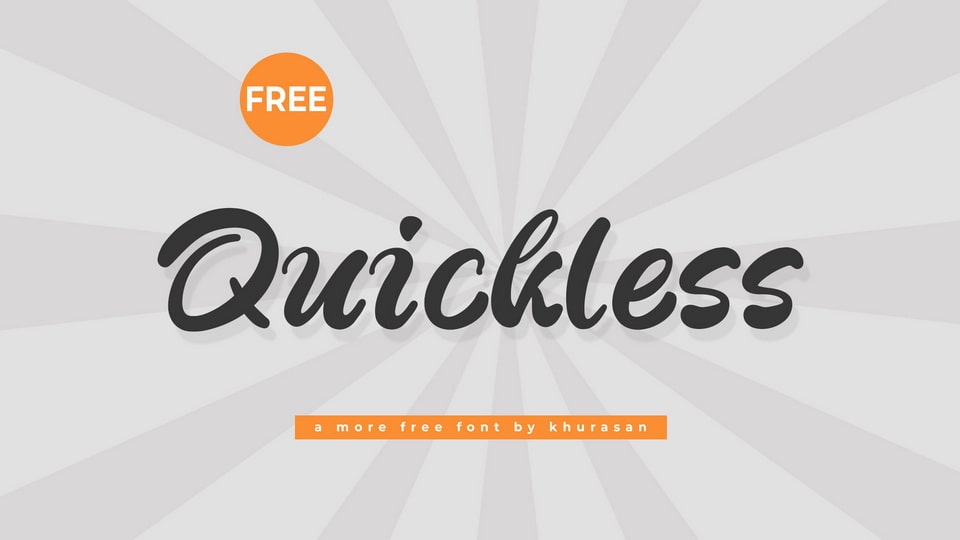
Download Quickless font, a simple and smooth handwritten typeface that radiates warmth and organic charm with its clean, flowing lines and natural strokes.